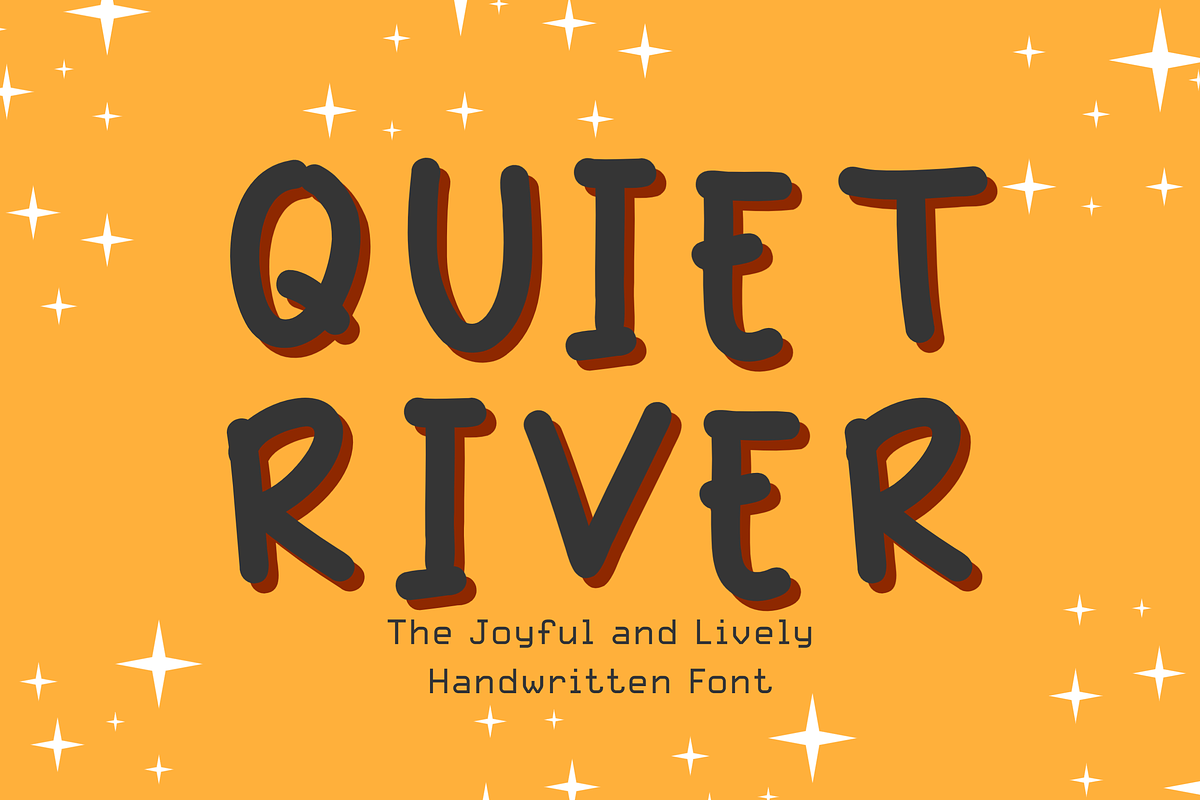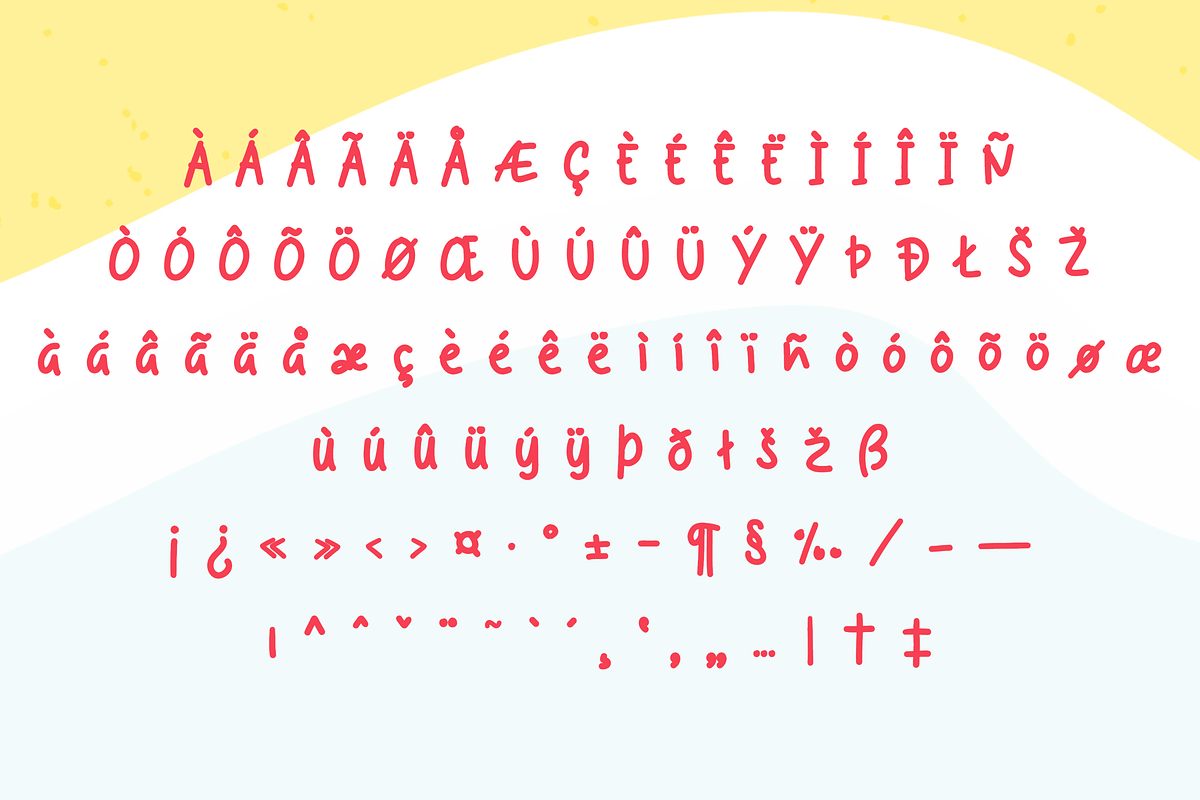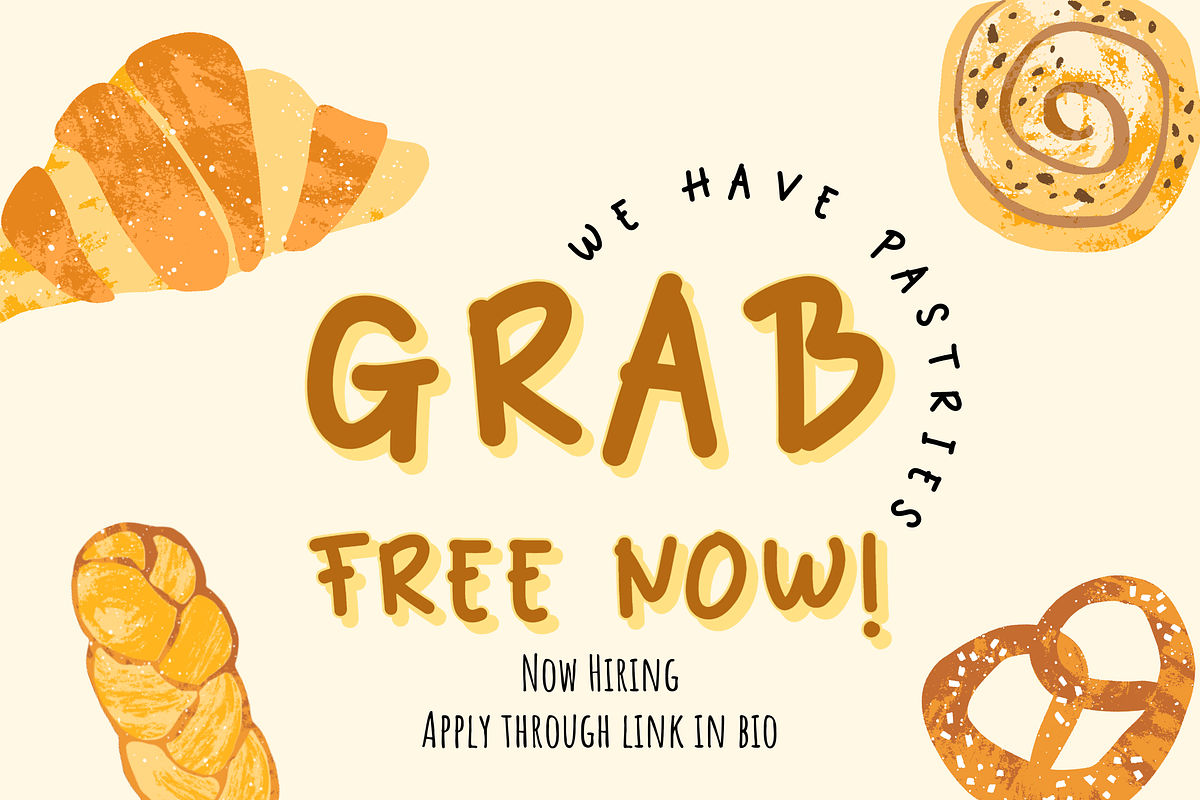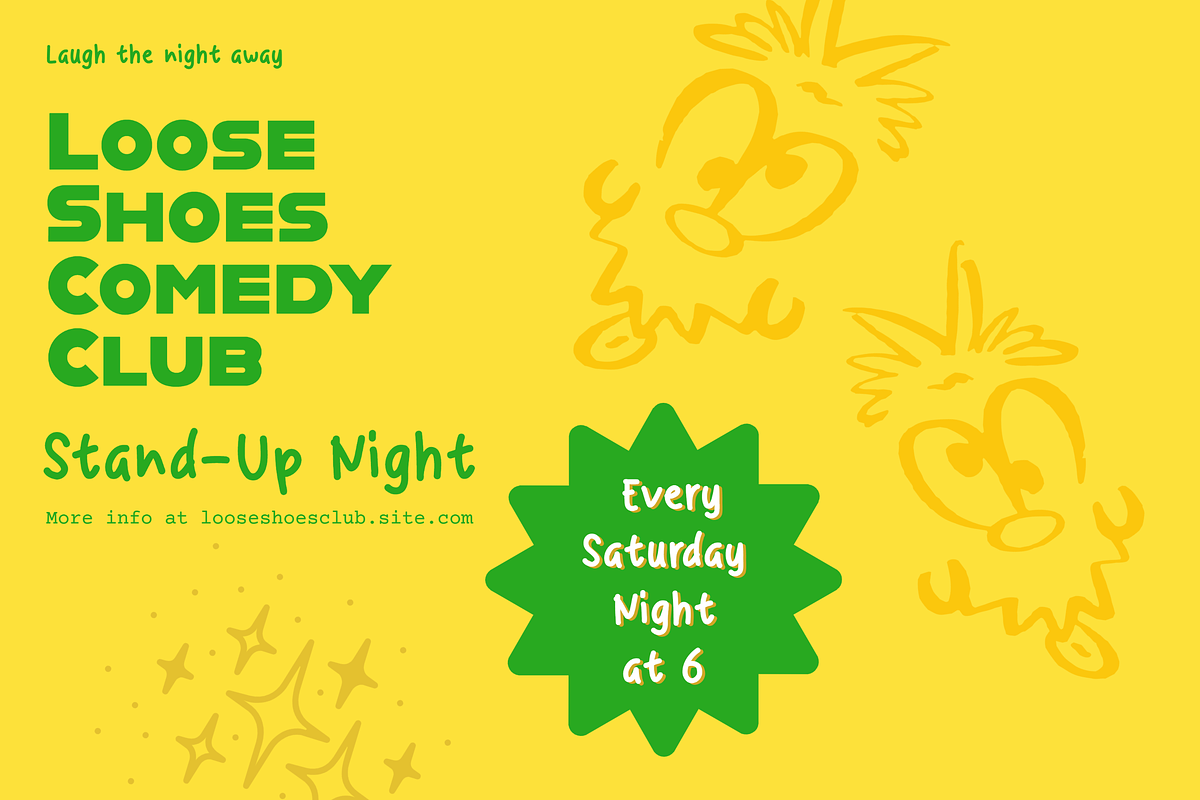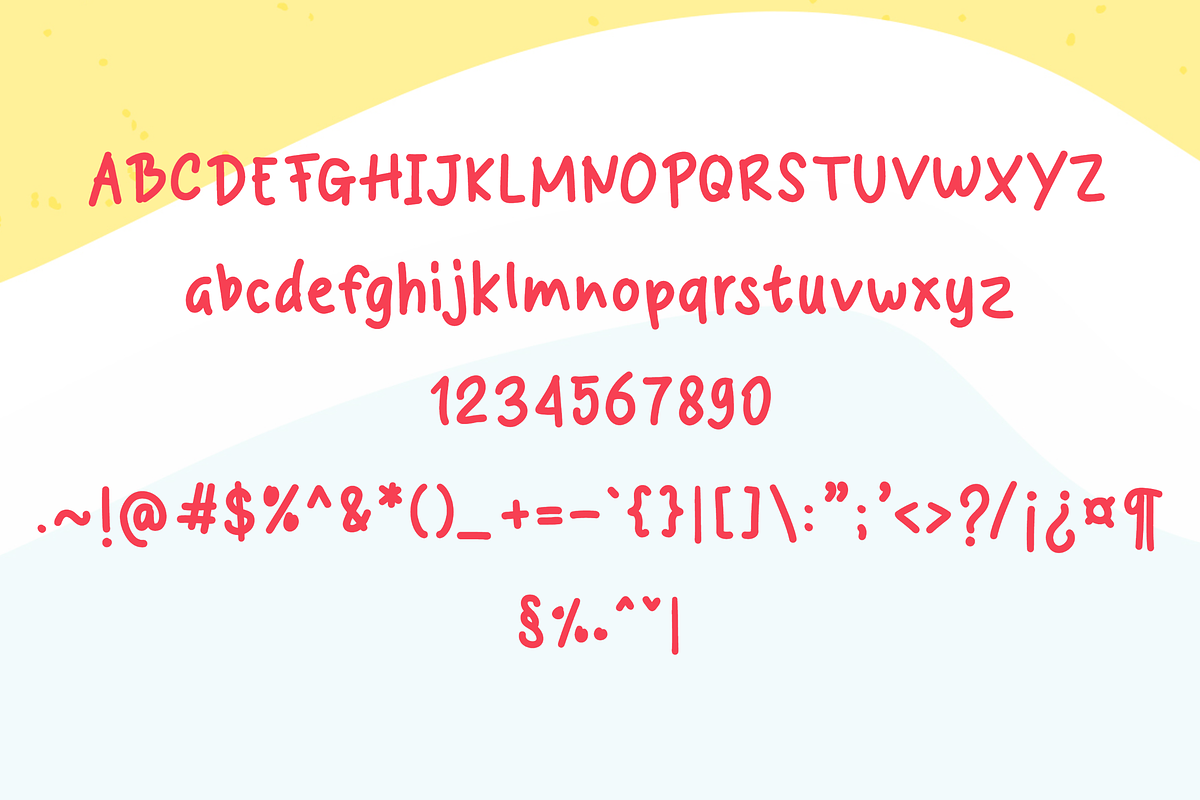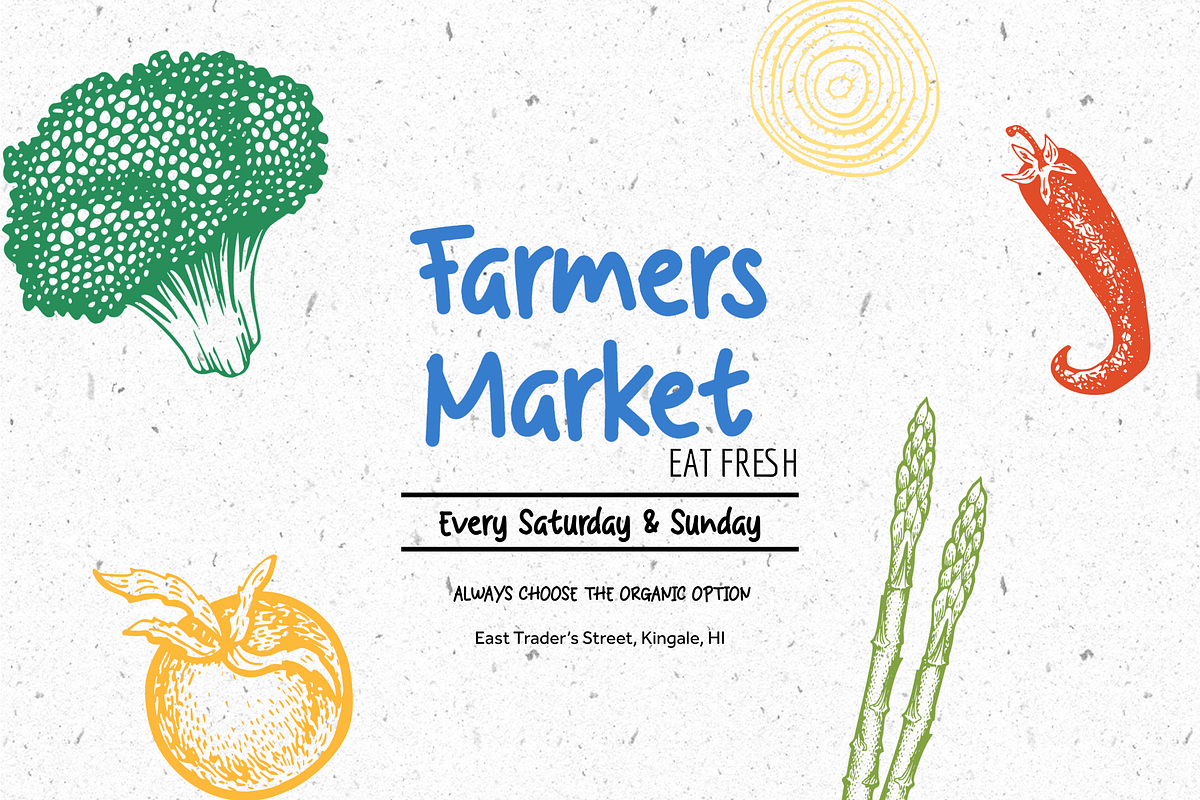
Quiet River Handwritten Font
Introducing "Quiet River" a delightful and whimsical handwritten font perfect for children and anyone seeking a playful touch. This font captures the essence of childlike imagination with its fun and lively style. Ideal for creating schedules, invitations, crafts, and more, "Quiet River" adds a cheerful and energetic vibe to your designs. Let your creativity run wild and bring joy to your projects with this charming and versatile handwritten font!